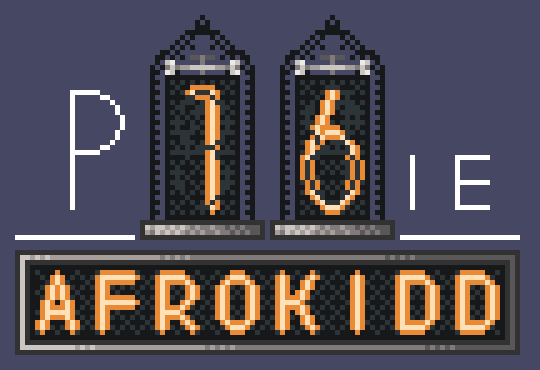
• Pronounced “Pixie”
A pixel Nixie tube font I made for my game.
Made in about 15 minutes.
the name “N1X” was also a potential candidate for the name of the font, but it seemed too lame :P